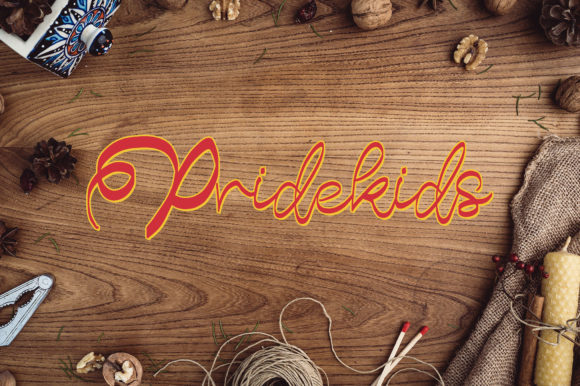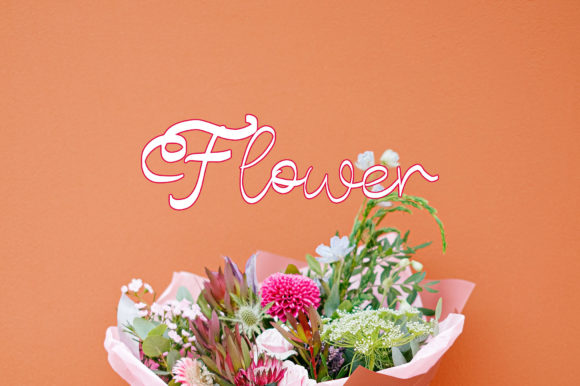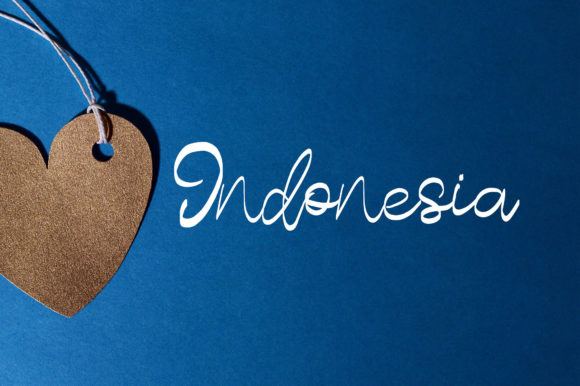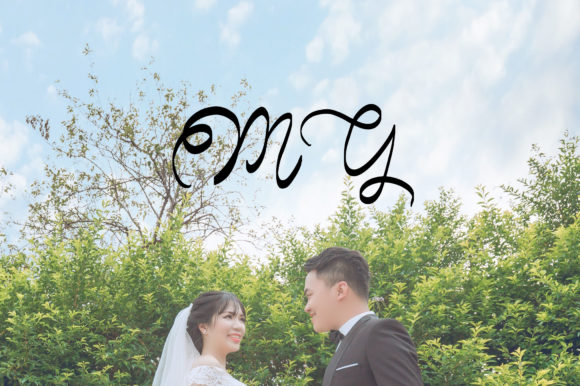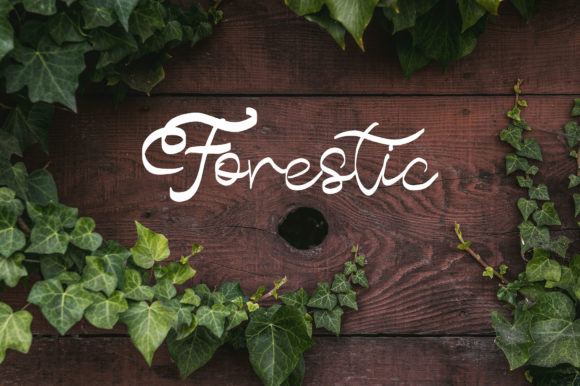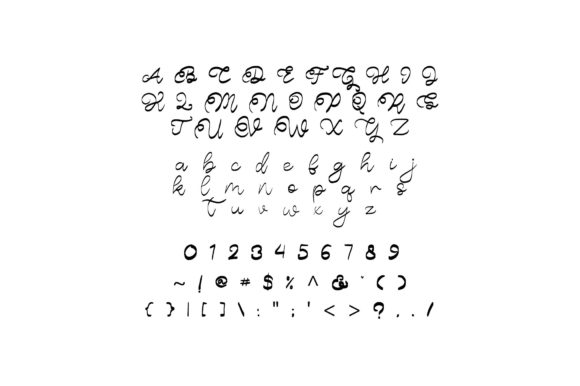
Introduction to Pridekids Font
Pridekids is a unique script font with very fashionable and cool curves.
Featuring characters dancing along a baseline for easy viewing for all your creative work Its stylish alternatives and binders make this font perfect and elegant for any project.